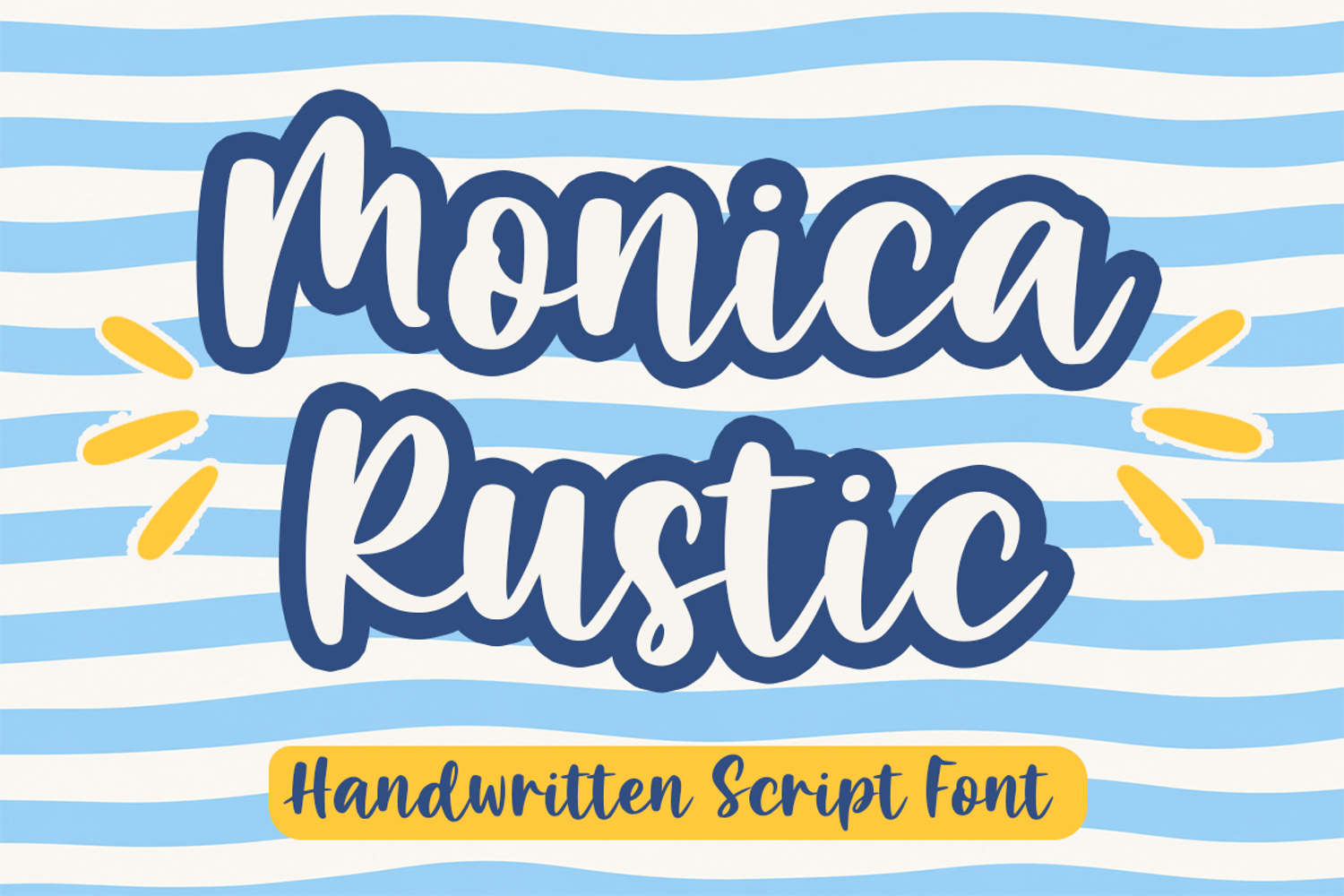
Monica Rustic
Unleash the charm of your designs with Monica Rustic, a charismatic handwritten script font teeming with stylish, modern allure alongside an artisan touch. Conceived from innate human handwriting, its delightful, fluid characters dance with a feel-good, welcoming tempo. Its letters possess the boldness to command attention in headlines, while preserving their mellow, affable appeal for extended texts and softer highlights. Monica Rustic’s versatility is beyond compare, perfectly suited for crafting an intimate atmosphere in wedding invites and greeting cards, including a unique flair to logos and branding, as well as infusing sentiment into social media posts. Its soft curves and extraordinary characters inject an unpretentious, friendly demeanor to any design endeavor. Imbue warmth and contemporary-rustic sophistication to your future projects with Monica Rustic!